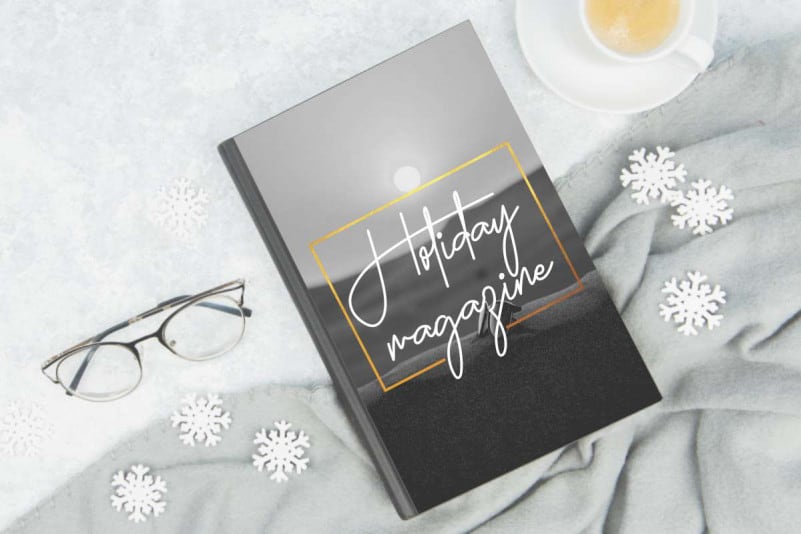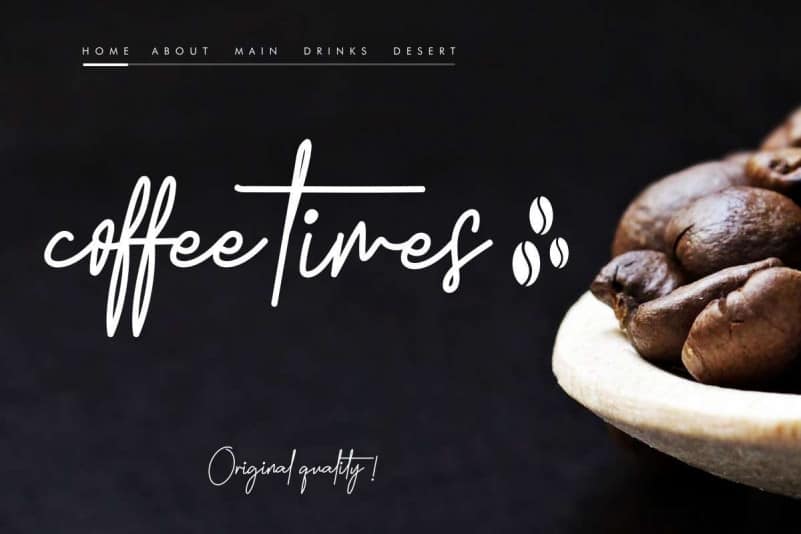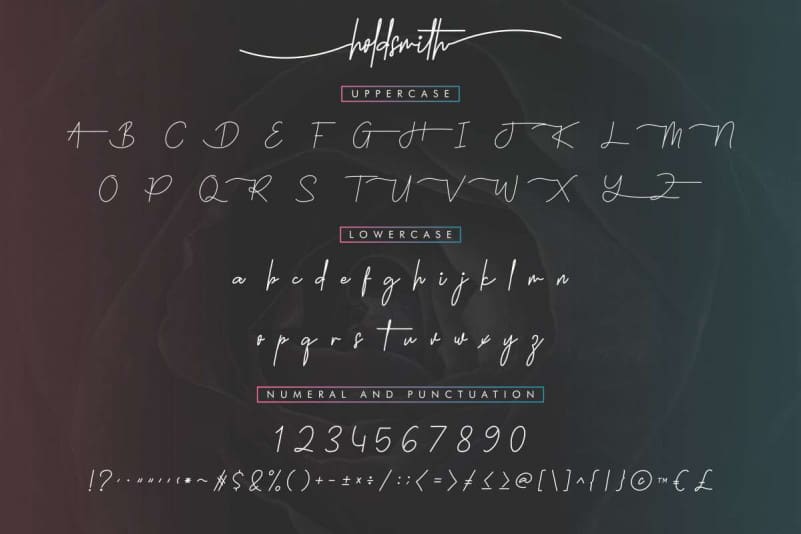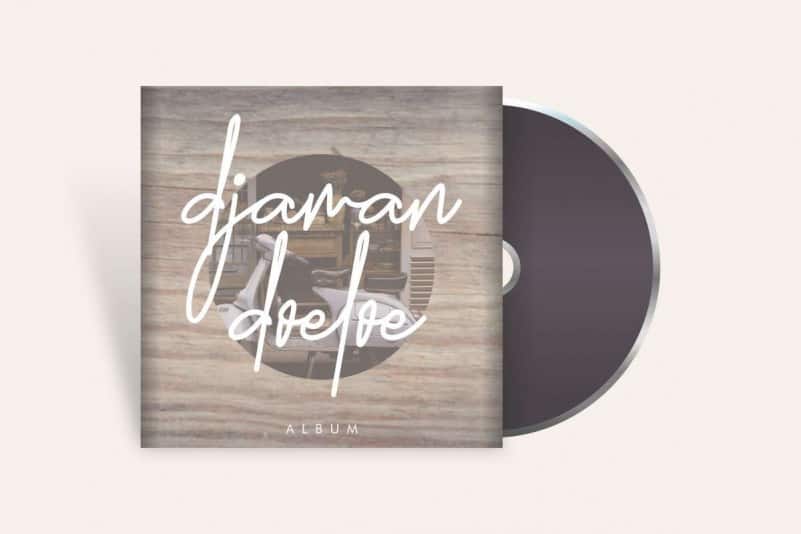
Holdsmith Handwritten Font
Holdsmith Handwritten Font is a signature script font. The style of this font are simple, classic, luxury, glamour, monoline and elegant handwritten pen.